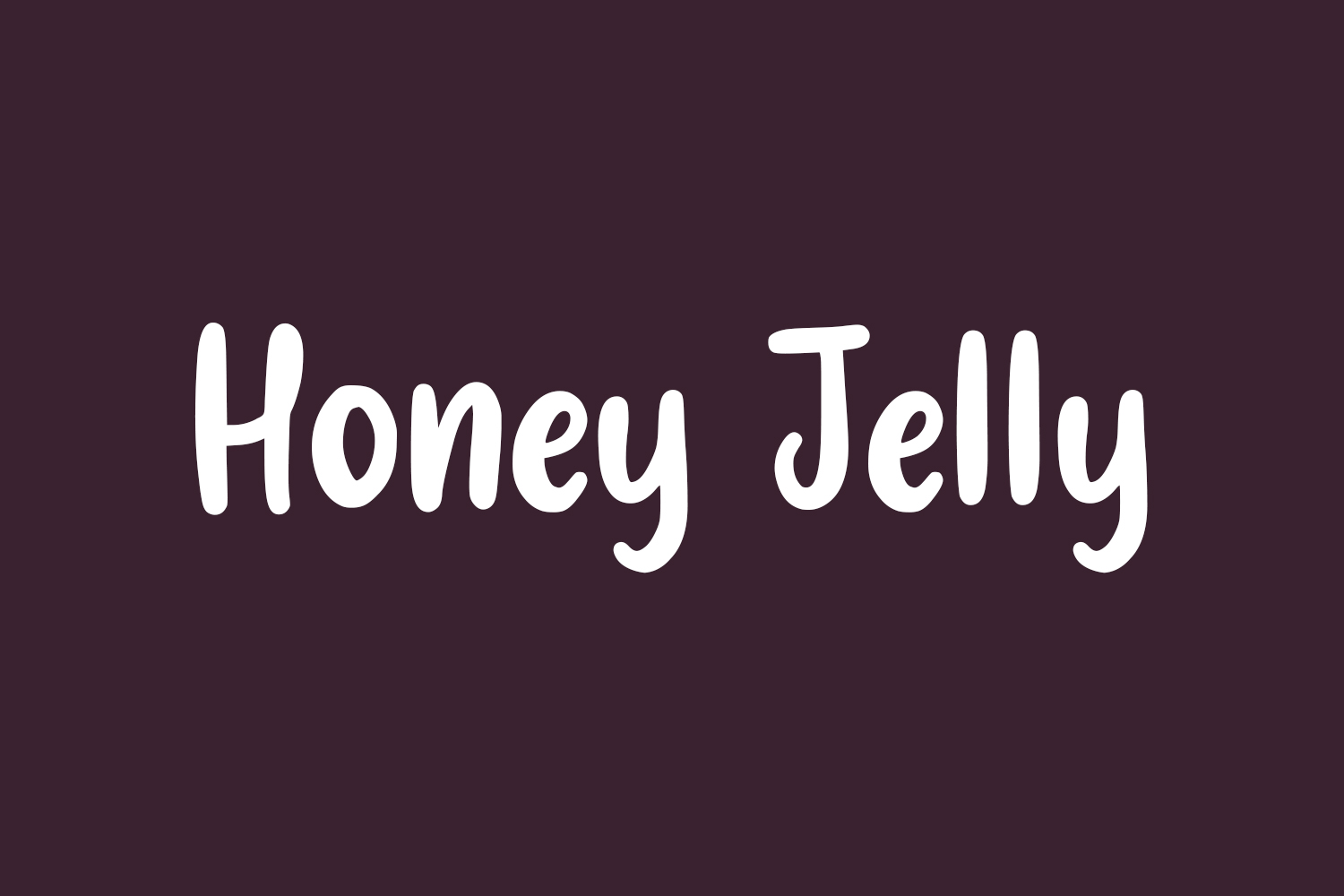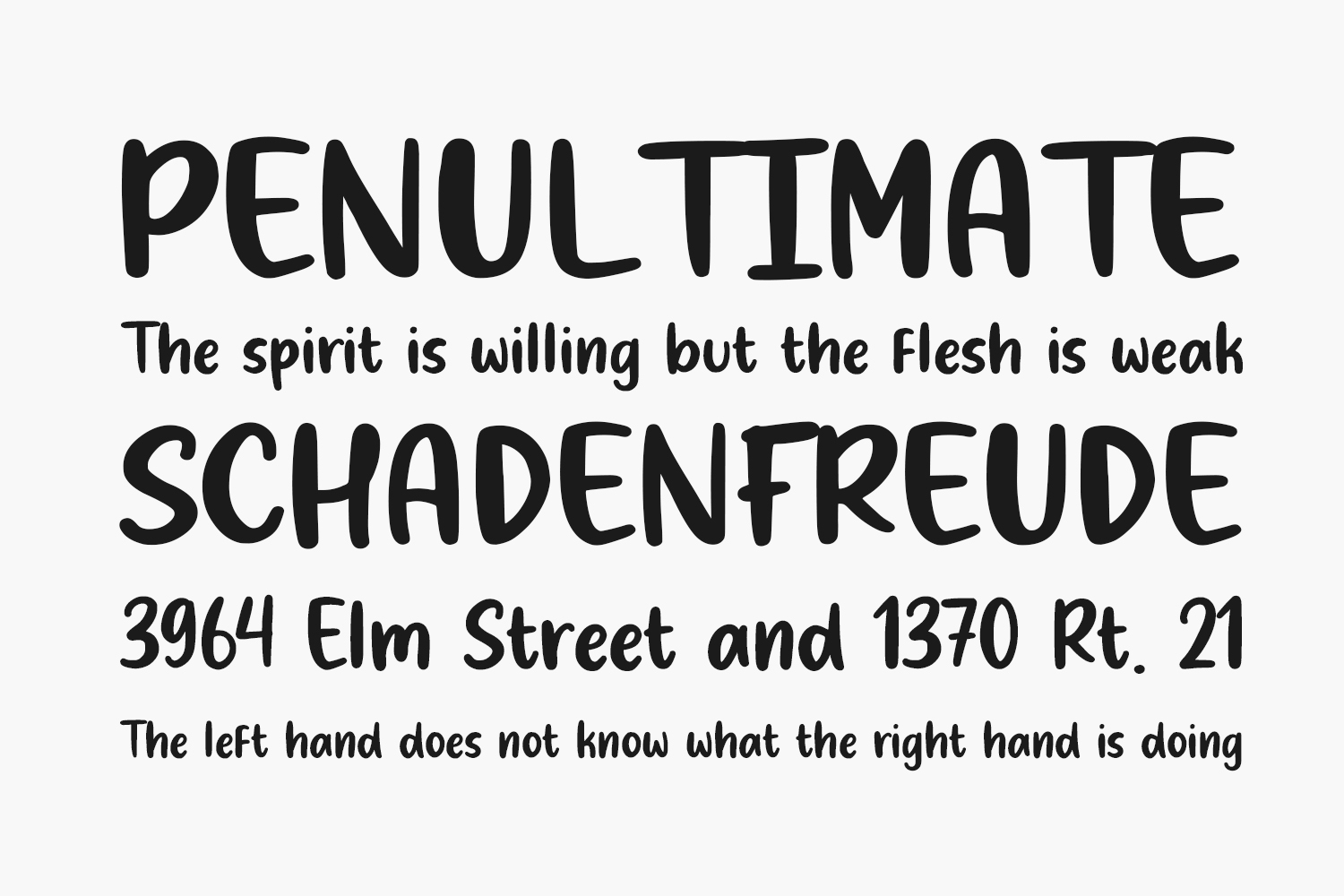
Introducing Honey Jelly Free Font, a delightful and approachable handwritten font ideal for enhancing your brand, invitations, stationery, wedding materials, social media content and beyond. Embrace the sweetness of this font across a wide range of creative applications. Download the font for free if you need it for personal use or purchase the full version for commercial use.